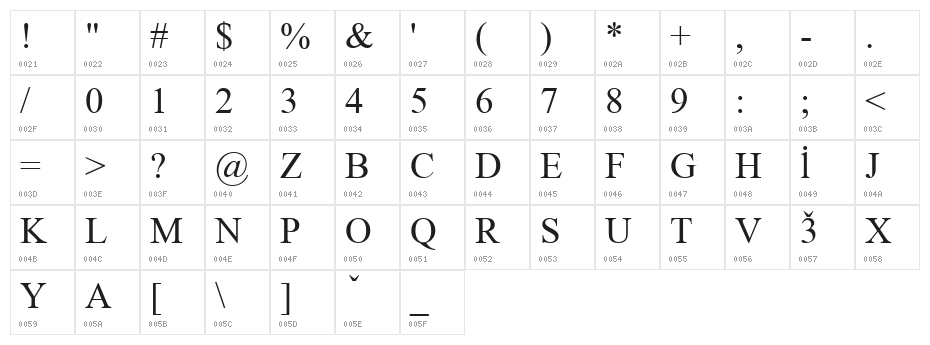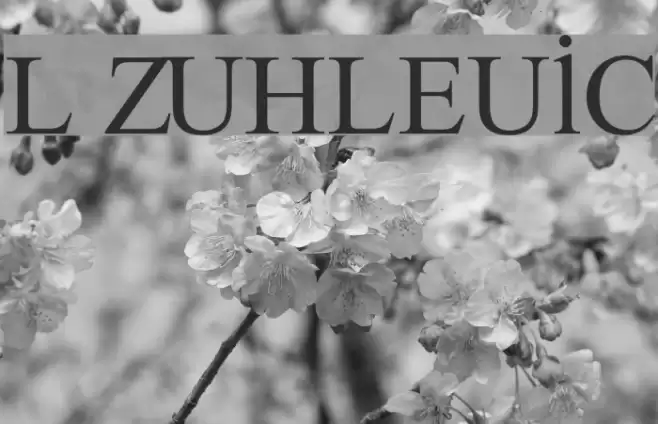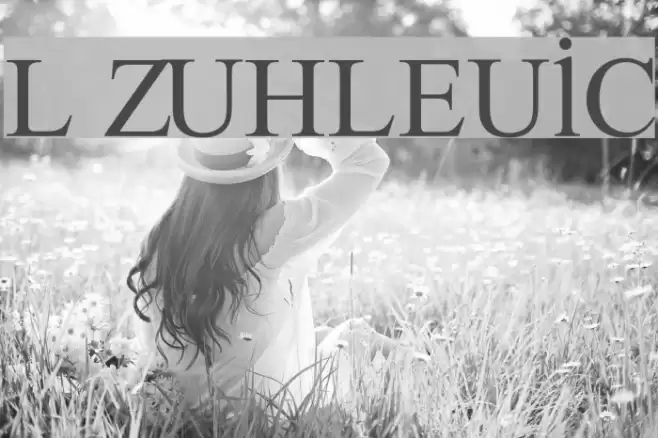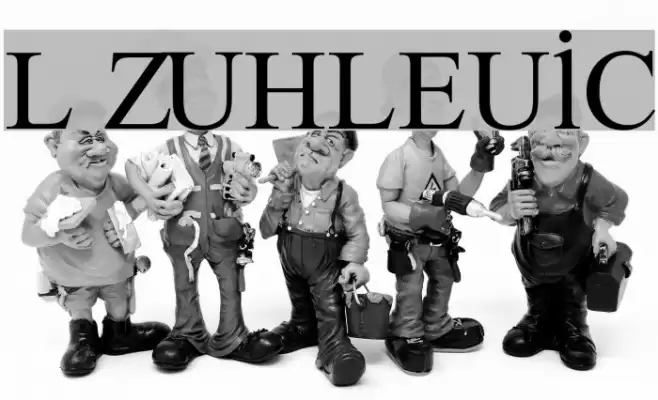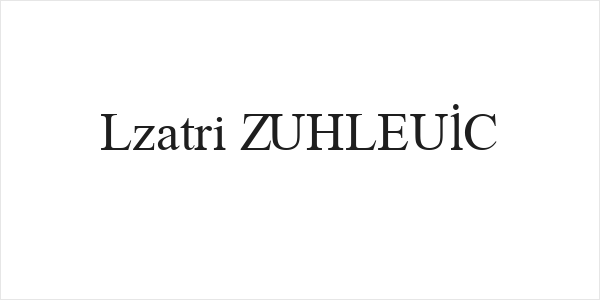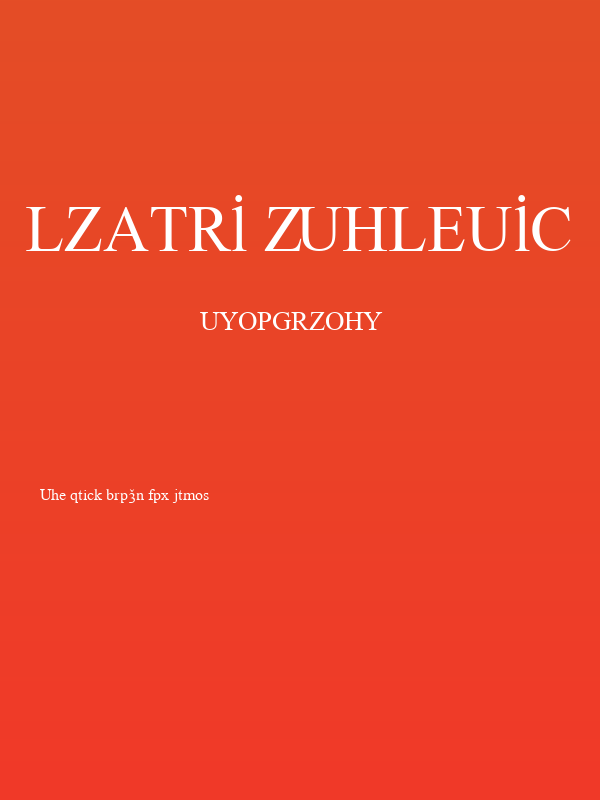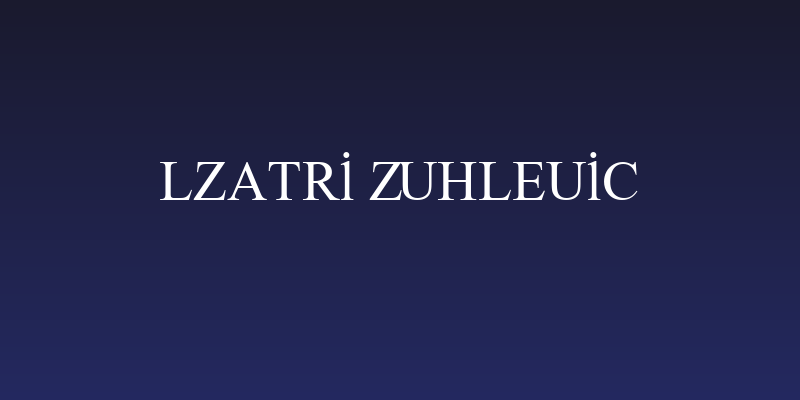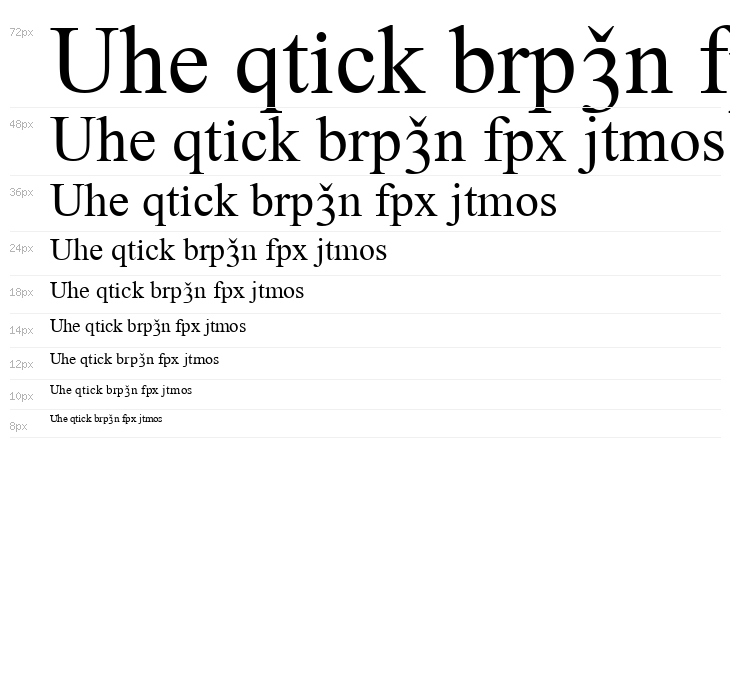
Lazuri ATHLETIC Font
Lazuri ATHLETIC Description
This font exudes a classic elegance with its serif style, characterized by distinct, sharp serifs and a balanced proportion in letterforms. The uppercase letters are bold and commanding, while the lowercase letters maintain a refined and sophisticated appearance. The numerals are clear and easily readable, complementing the overall traditional aesthetic. Special characters are well-integrated, maintaining the font's cohesive look. The font's design is suitable for conveying a sense of formality and tradition, making it ideal for projects that require a touch of sophistication.
Overall StyleClassic
Use CaseHeadlines, Body text, Logos
Proposed ProjectsIdeal for formal documents, book covers, editorial design, and branding that requires a traditional and elegant touch.